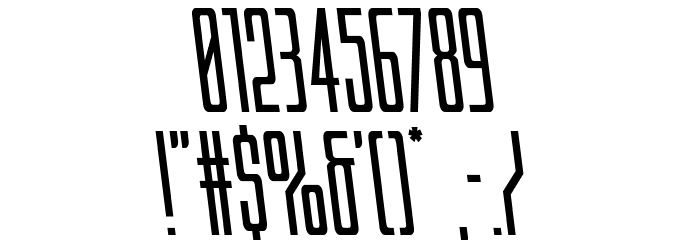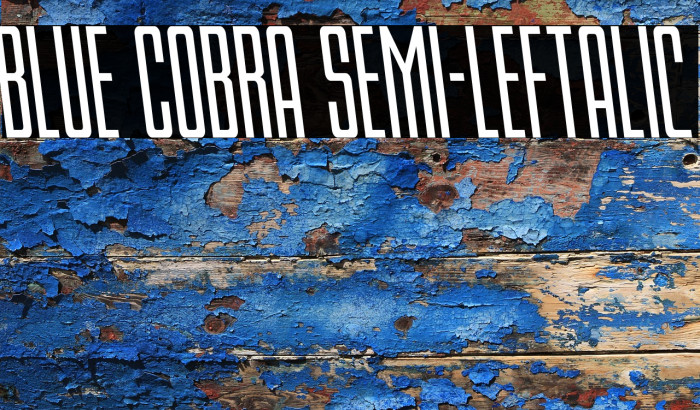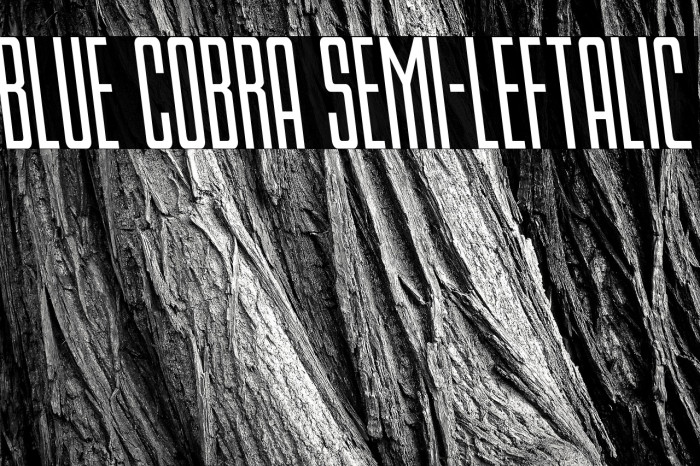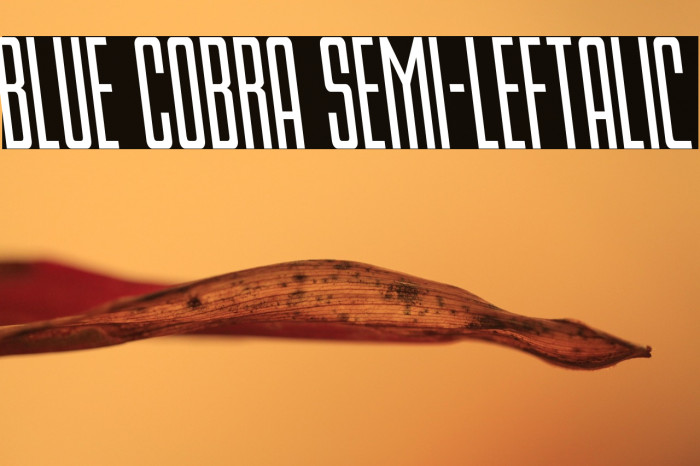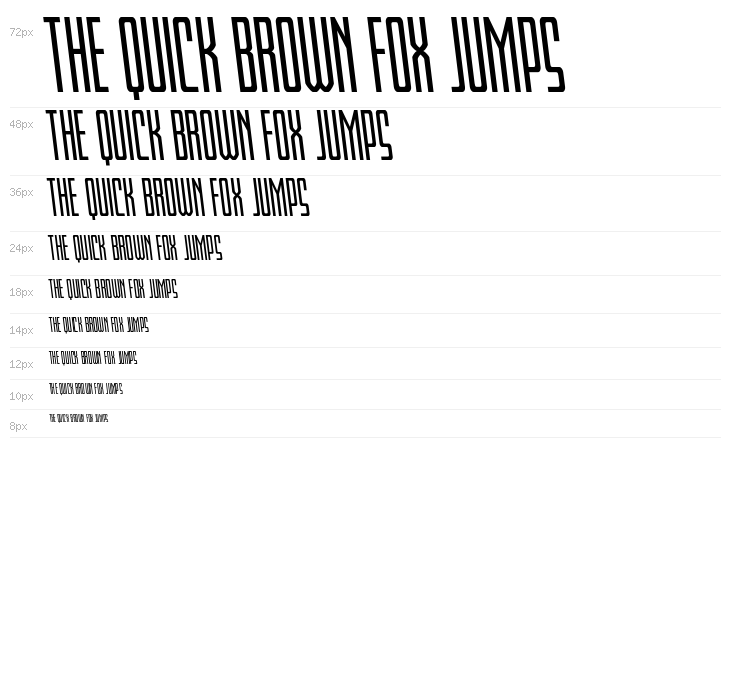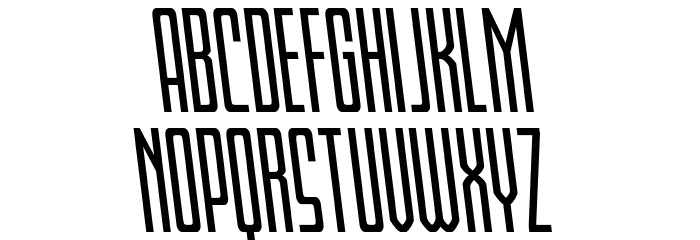
Blue Cobra Semi-Leftalic Font
Blue Cobra Semi-Leftalic Description
This font features a bold, condensed style with a distinctive slant to the left, giving it a dynamic and modern appearance. The characters are tall and narrow, with consistent stroke widths that create a uniform look across the alphabet. The uppercase and lowercase letters maintain a cohesive design, while the numerals and special characters complement the overall aesthetic. The font's geometric structure and angular lines contribute to its contemporary feel, making it suitable for projects that require a strong visual impact.
| Proposed Projects | Ideal for branding, posters, and headlines where a strong, modern look is desired. |